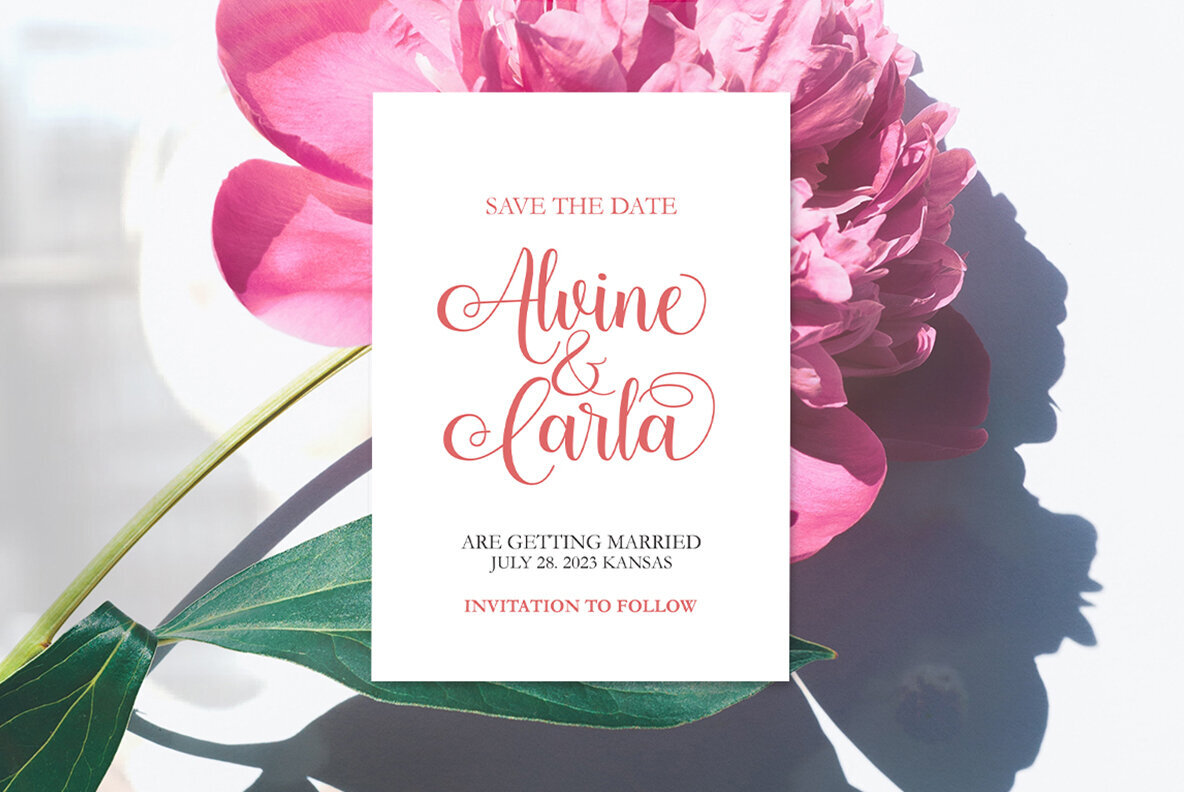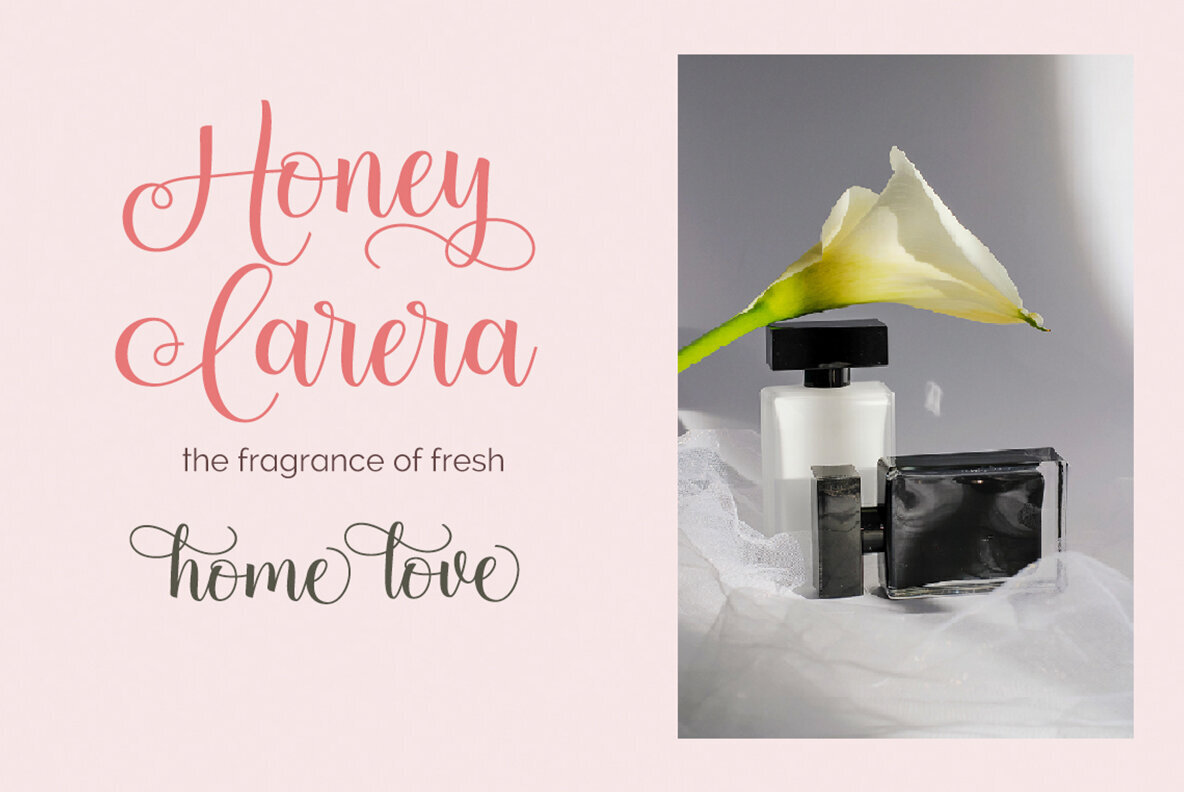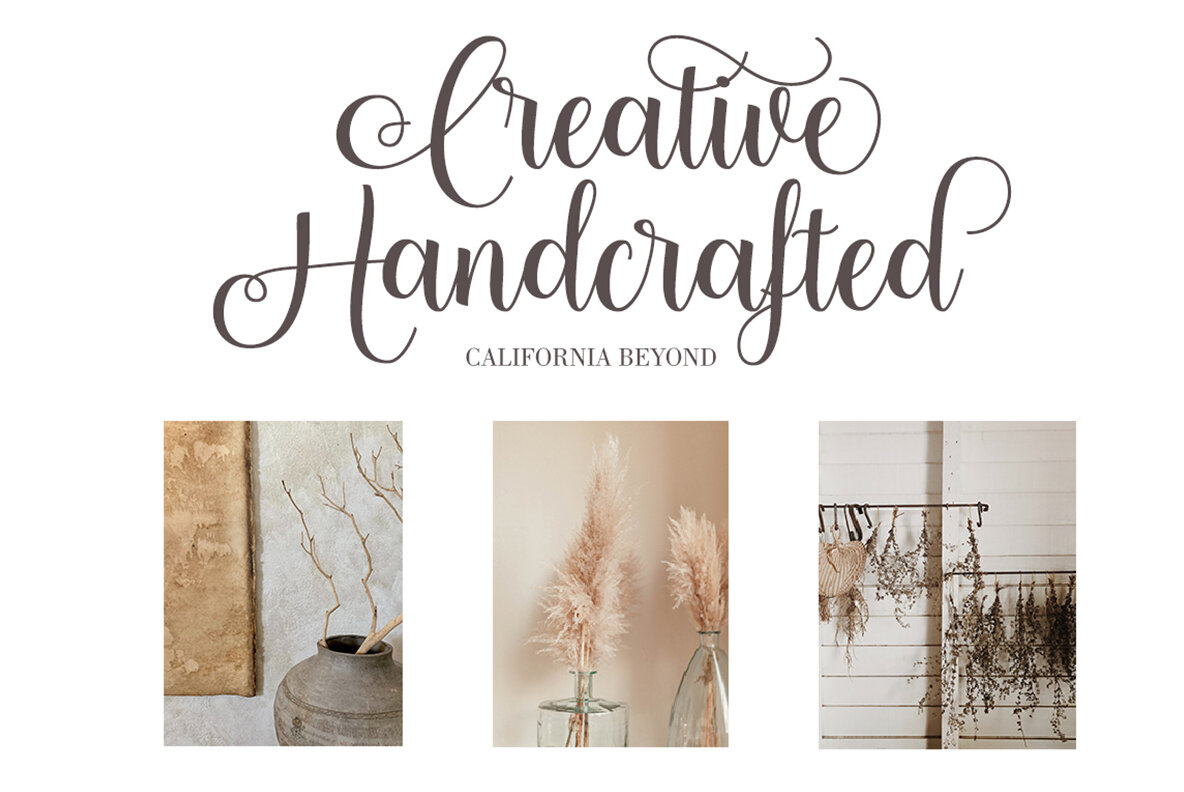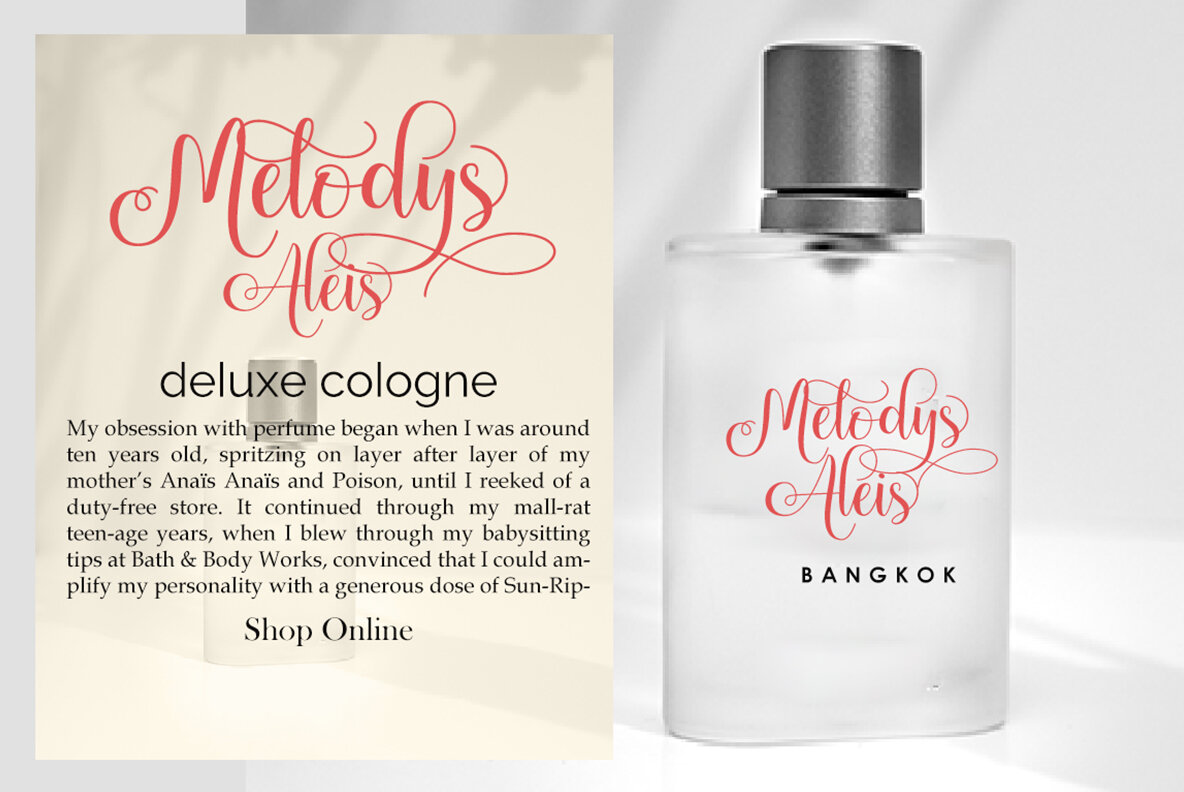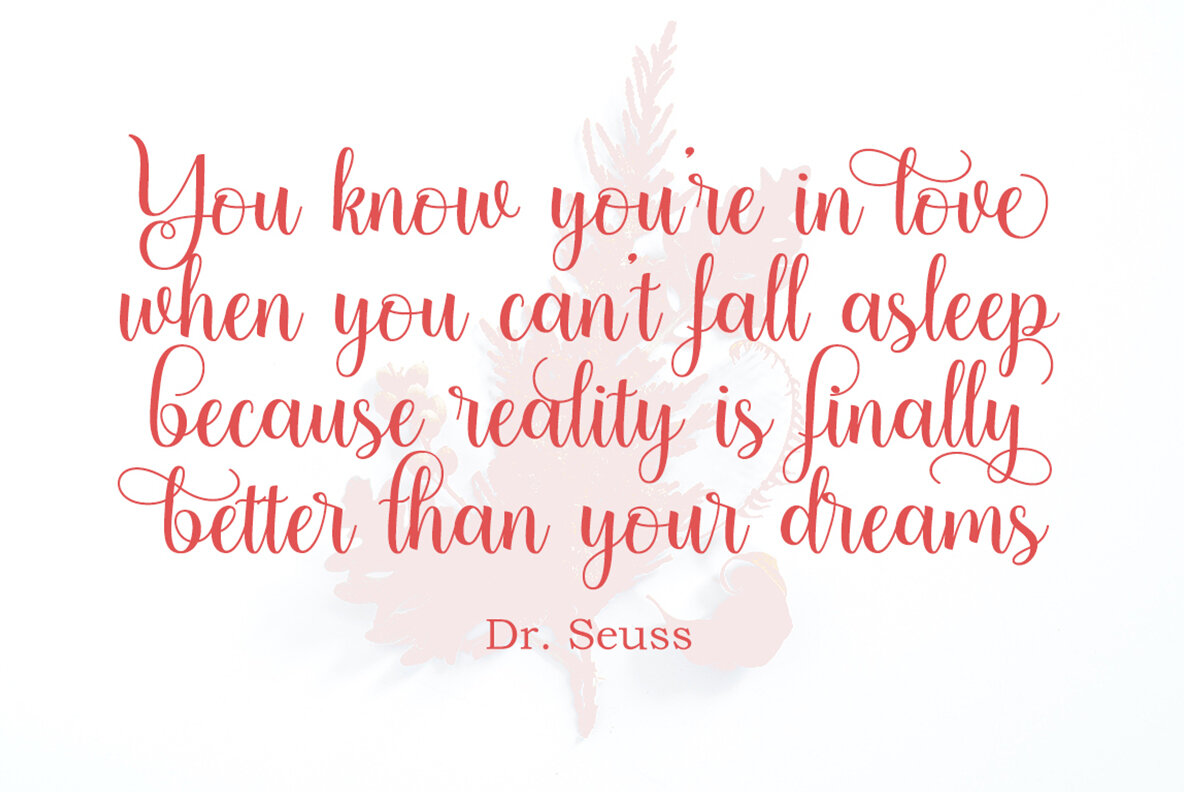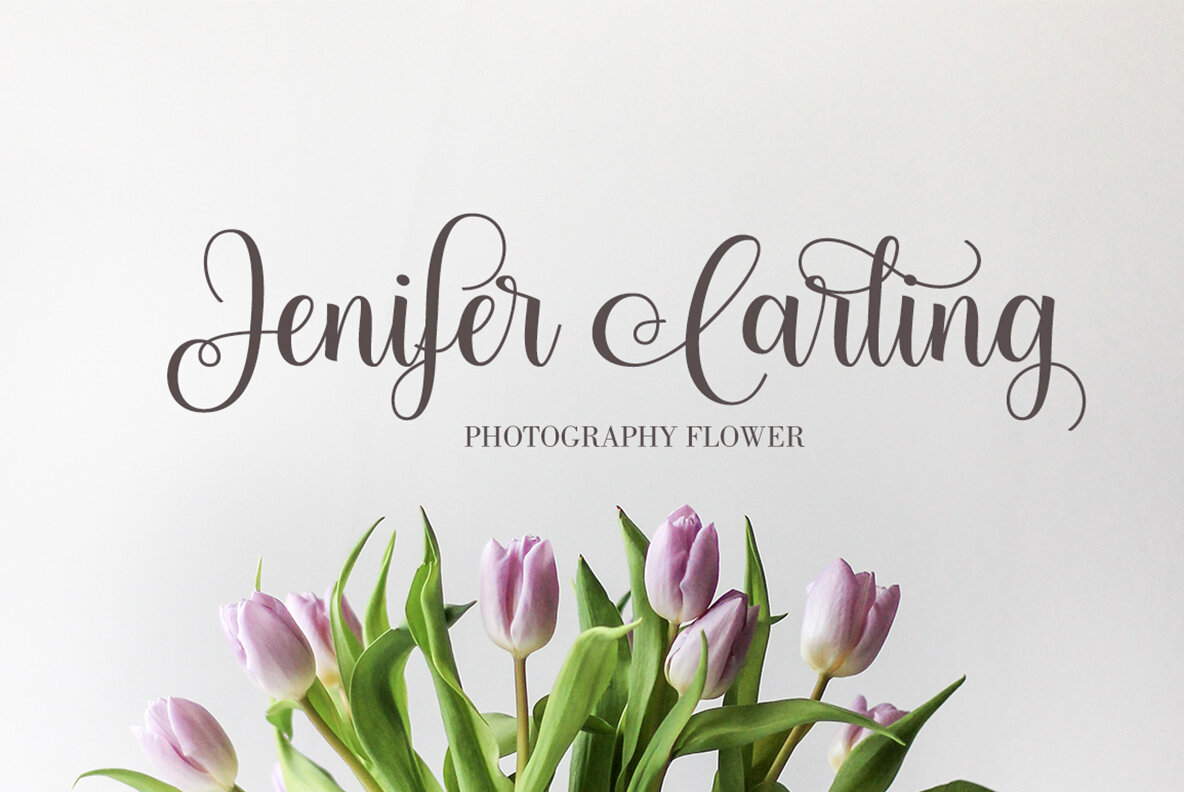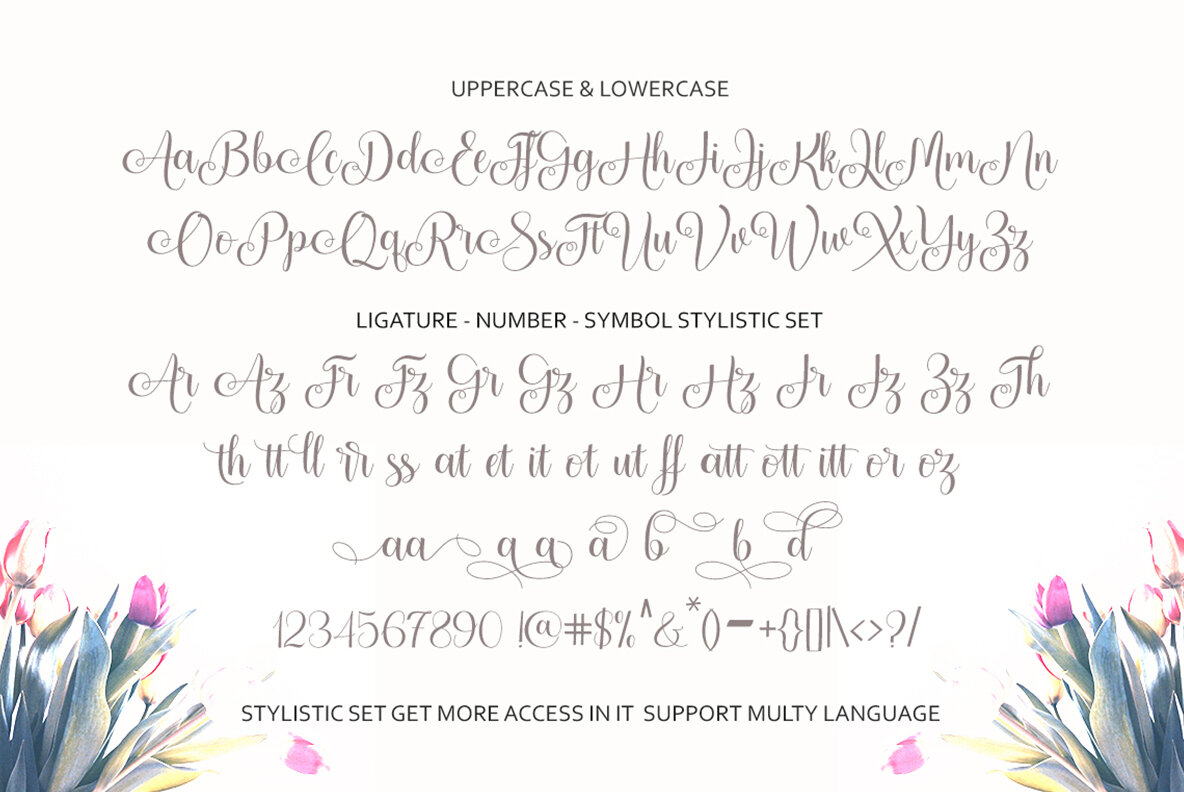
Amerthin Font
Amerthin Regular
Amerthin is a sophisticated handwritten font characterized by its distinctive curves, perfect for adding an elegant touch to stylish, feminine projects. This font features initial and ending engravings in both uppercase and lowercase forms, alongside exquisite ligatures. It is exceptionally suitable for use in wedding designs, fashion pieces, greeting cards, invitations, social media posts, and more.Amerthin: Elegant Handwritten Curve for Feminine Projects